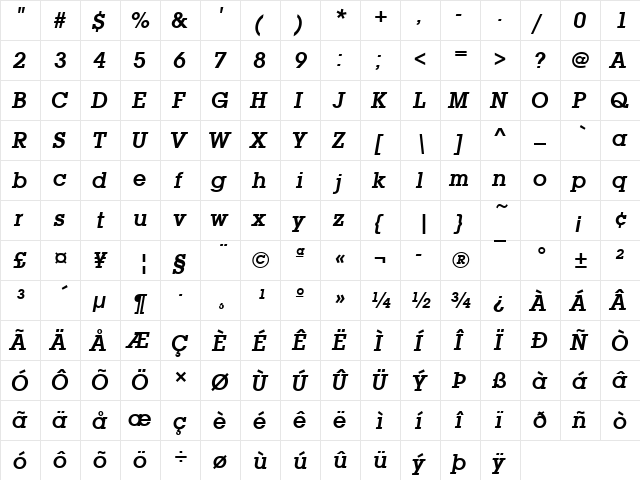
LubalinGraItcTDem Oblique
Design Context for LubalinGraItcTDem Typeface
LubalinGraItcTDem takes a measured approach to typography — its balanced proportions and neutral character make it a reliable workhorse for both digital and print work. Its italic angle brings a sense of urgency and motion to the letterforms.
Pro Tip: Try LubalinGraItcTDem for annotation and caption copy alongside an upright companion — the contrast in angle creates a dynamic but ordered typographic system.